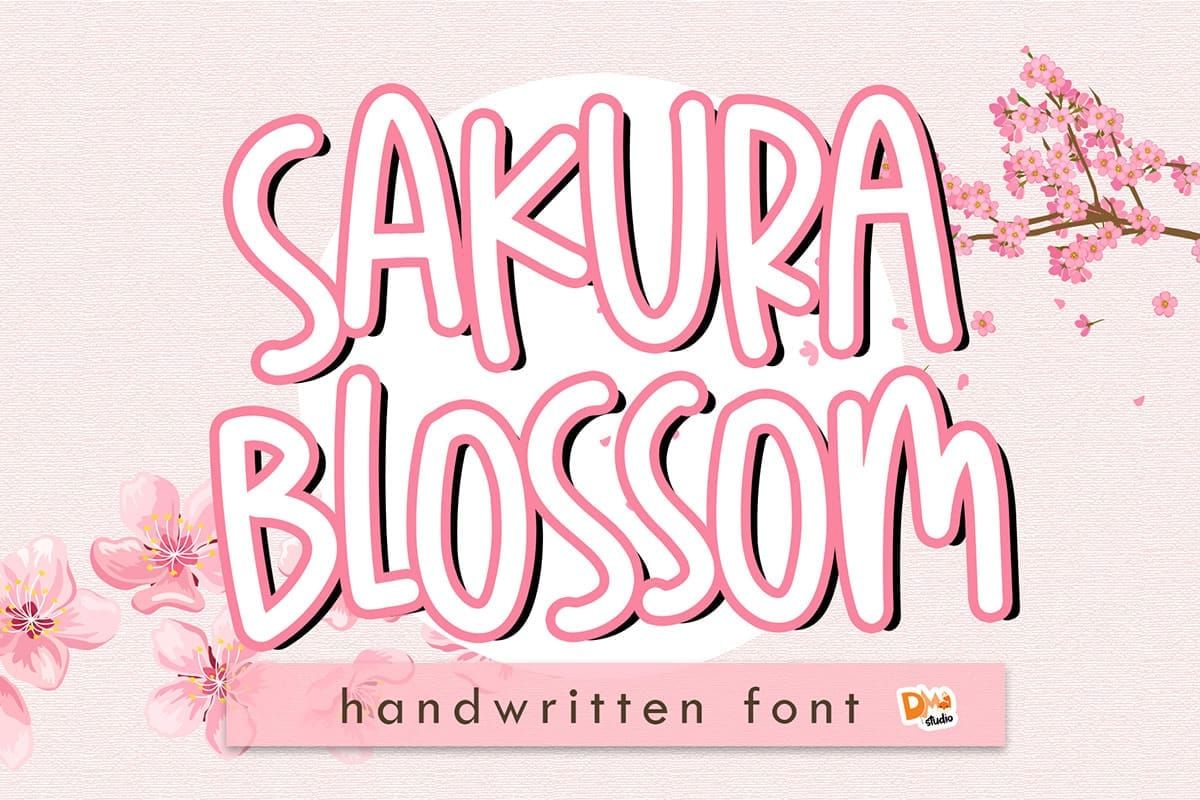
Whether you’re crafting a minimalist Instagram post or a playful party invitation, using targeted Canva aesthetic elements keywords allows you to maintain a consistent visual style, save time, and improve the overall appeal of your work. In this blog, we’ll explore the most effective keyword strategies, how to mix design themes using fonts like Bubble Mint, Matcha Latte, Sticky Sugar, and Artsy, and offer a curated list of high-performing aesthetic keywords for every need.
For instance, searching “neon sparkle” might give you glowing stars and lines, perfect for a retro theme paired with a font like Shade Blue. Typing “organic brush” may reveal painted swooshes or abstract shapes, ideal for natural designs using Matcha Latte or Artsy fonts.
Not all elements are created equal. Here are curated groups of the best Canva elements keywords based on design categories—each inspired by fonts from your image collection.
Playful and Youthful Designs
Fonts like Cutie Shark, Bubble Mint, and Sticky Sugar bring out the fun in your layout. Use these Canva elements keywords to match their vibe:
• “cute pastel”
• “kawaii doodles”
• “funny blob character”
• “hand-drawn emoji”
• “pop bubble”
These keywords add quirky energy that mirrors your chosen font’s character, making designs feel approachable and joyful.
Natural & Organic Styles
With handwritten fonts like Matcha Latte, Sakura Blossom, and Thanks Autumn, your keywords should reflect earthy, botanical aesthetics:
• “leaf sketch”
• “line art flower”
• “natural shape”
• “dried plant”
• “warm neutral abstract”
Matching these fonts with calming elements builds harmony in wellness, lifestyle, and eco-friendly graphics.
Bold & Retro Aesthetic
For drama and impact, fonts such as Melted Monster, Shade Blue, and Lodeh benefit from bold, nostalgic keywords:
• “vaporwave”
• “retro starburst”
• “liquid blob”
• “vintage grunge”
• “neon circle”
These Canva aesthetic elements keywords pair beautifully with large typography and layered color treatments.
Soft and Romantic Themes
Fonts like Love Days and Sakura Blossom are perfect for romantic cards, wedding invites, and gentle content. Use:
• “rose petal”
• “soft watercolor”
• “pastel ribbon”
• “love doodle”
• “valentine frame”
These match the sentimentality and tenderness these fonts naturally convey.
Brand consistency is crucial. Whether you’re using Block Note for journaling brands or Artsy for creators’ portfolios, having a handful of go-to keywords for elements ensures your visuals always look unified.
Here are three pro tips:
1. Save frequently used keywords in your Notes app.
Example: “hand-drawn sparkle,” “grain texture,” “boho floral.”
2. Create a favorites folder in Canva.
Whenever you find an element that works with your font pairings, star it!
3. Test font + element pairings side-by-side.
Use the same design frame to test if your element feels off-brand or perfectly aligned.
Aesthetic Elements to Match Every Font in the Image
Let’s link your selected fonts to complementary aesthetic keywords directly:
FontSuggested Elements Keywords
Melted Monsters“spooky doodles”, “Halloween gradient”, “drip”
Matcha Latte“organic brush”, “matcha”, “plant line art”
Sakura Blossom“pink watercolor”, “spring flower”, “cherry petal”
Artsy“paint swatch”, “art stroke”, “boho icon”
Sticky Sugar“sprinkles”, “sugar candy”, “party ribbon”
Cutie Shark“cartoon shark”, “fun fish”, “sea creature”
Block Note“notebook paper”, “handwritten list”, “memo tape”
Love Days“heart sticker”, “cute border”, “romantic clipart”
Spooky Webbie“web sticker”, “cute ghost”, “trick or treat”
Bubble Mint“soap bubble”, “mint leaves”, “round cartoon”